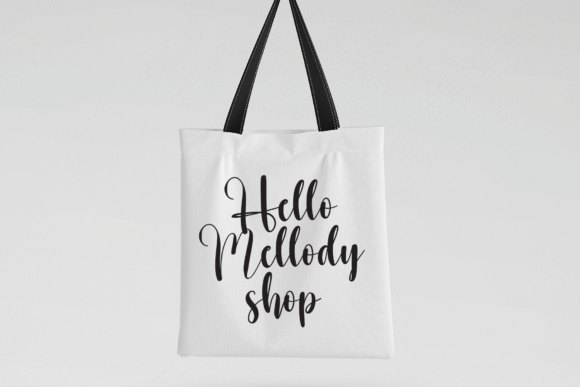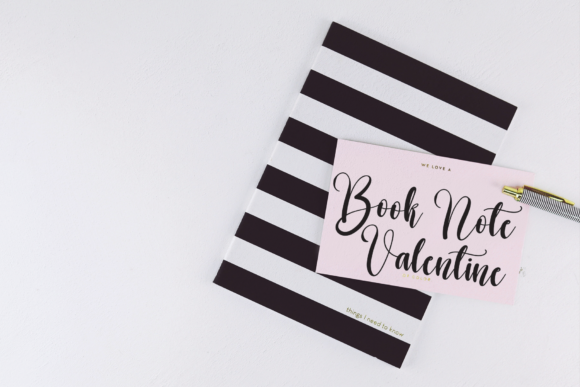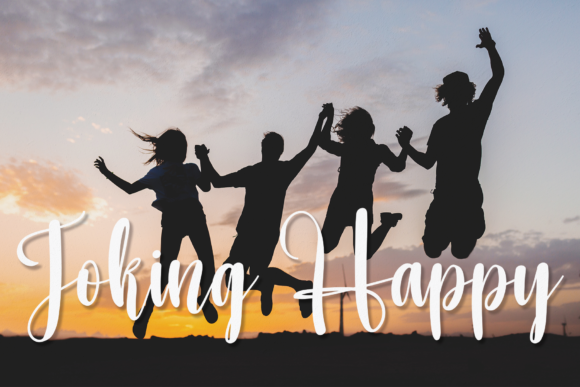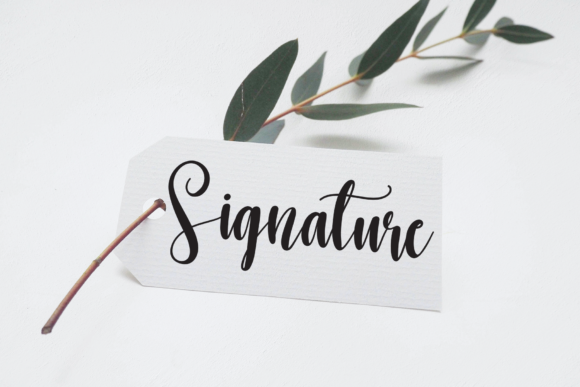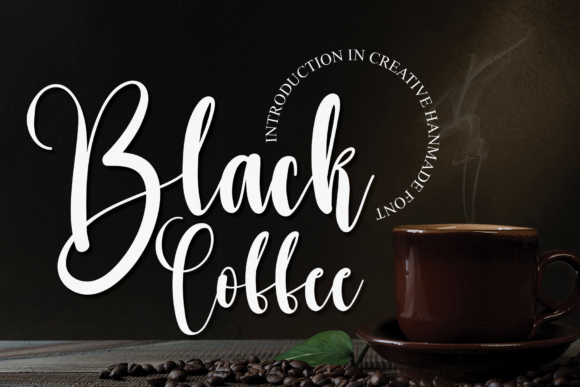
The Sweet Delight of Black Coffee Font: A Designer’s Best Friend
I’ll never forget the time I was working on a romantic wedding invitation project, and my client asked me to create a whimsical and elegant design that captured the couple’s love story. As I began to brainstorm, I realized that finding the perfect font was crucial to bringing the entire design together. That’s when I stumbled upon the beautiful Black Coffee font. This sweet and cursive handwritten font has since become one of my go-to choices for adding a touch of romance and joy to my designs.
- ✨ Sweet and elegant look: Black Coffee font has a unique, cursive handwritten style that adds a touch of sophistication to any design.
- ✅ Highly versatile: This font works beautifully on a variety of design materials, from wedding invitations to social media graphics.
- 💕 Romantic and whimsical feel: Black Coffee font is perfect for creating designs that require a touch of romance and playfulness.
- 🤔 Limited use in body text: Due to its cursive nature, Black Coffee font may not be the best choice for lengthy body text. It’s better suited for headings and titles.
- ⚠️ Some letters may require manual kerning: As with any font, you may need to adjust the kerning of certain letters to achieve optimal results.
The Story Behind Black Coffee Font
Black Coffee font was designed by a talented type designer who wanted to create a font that captured the warmth and elegance of a perfectly brewed cup of coffee. The designer’s inspiration came from traditional handwritten scripts, with a modern twist to make it suitable for a wide range of design applications.
| Font Name | Black Coffee Font |
| What is Black Coffee font best suited for? | Black Coffee font is ideal for designs that require a touch of romance, elegance, and whimsy, such as wedding invitations, social media graphics, and branding materials. |